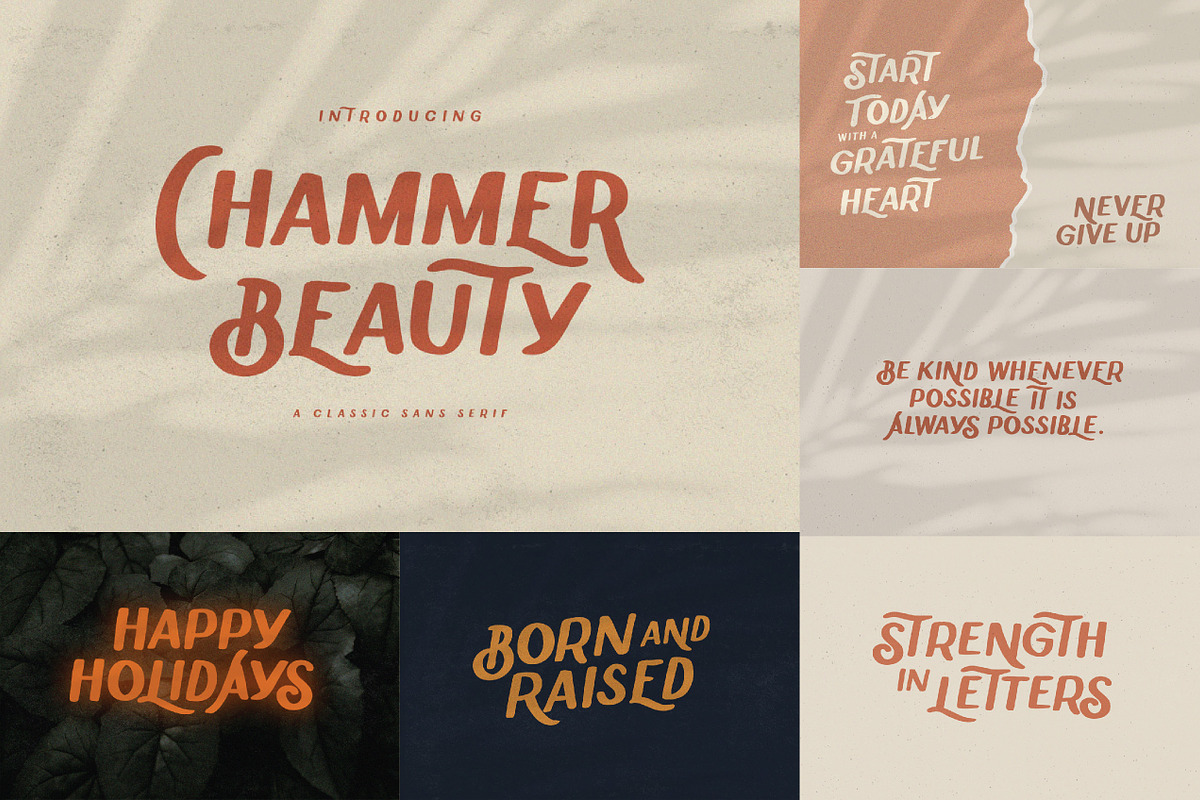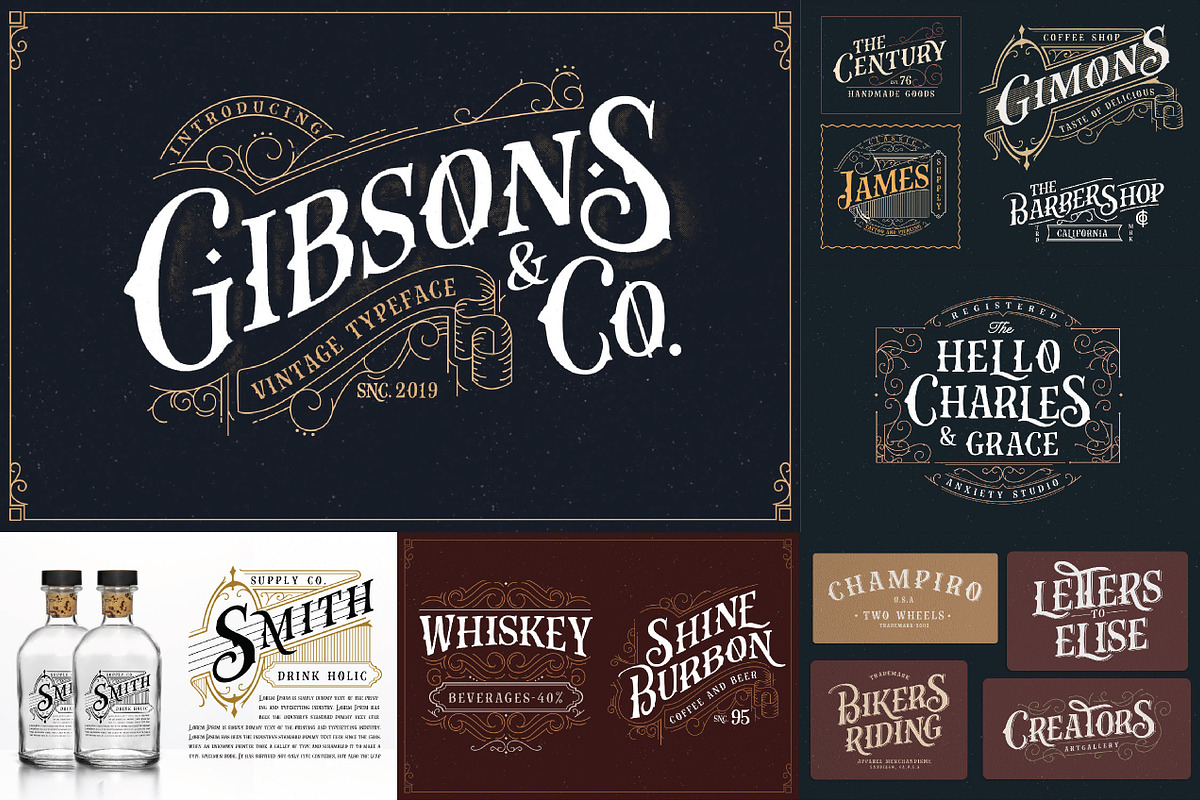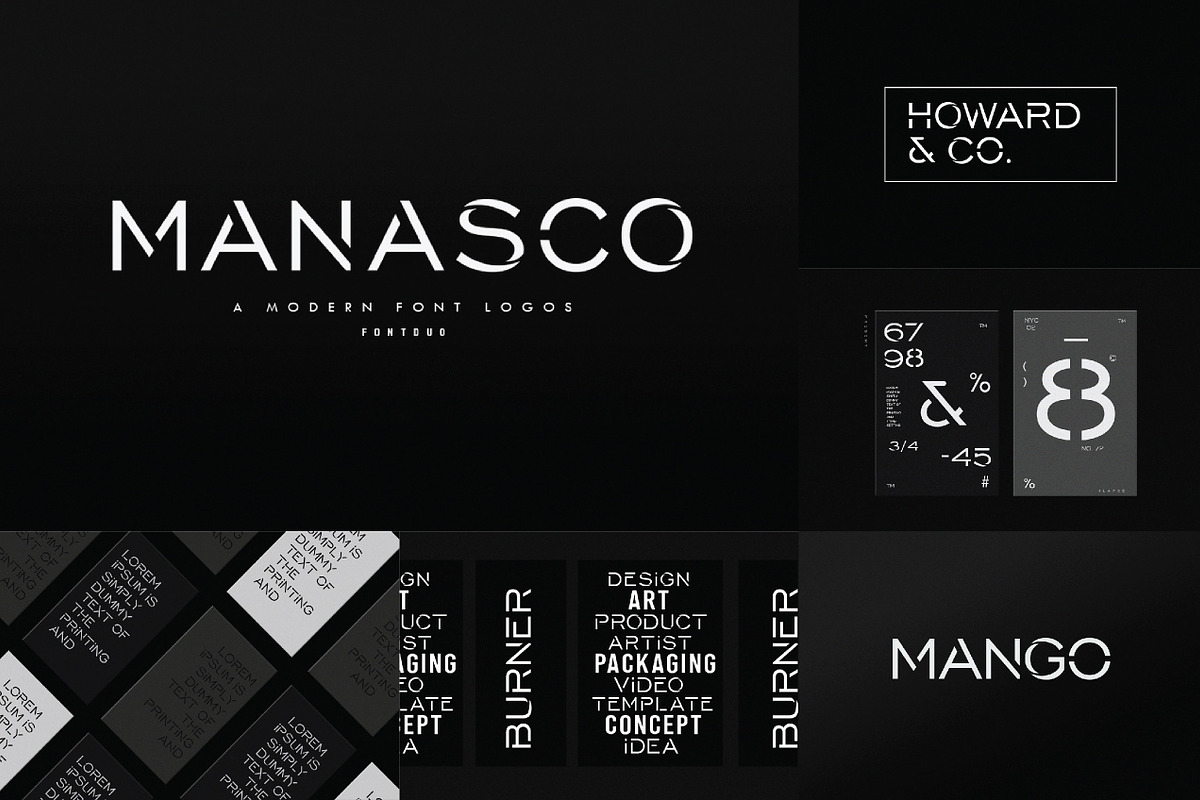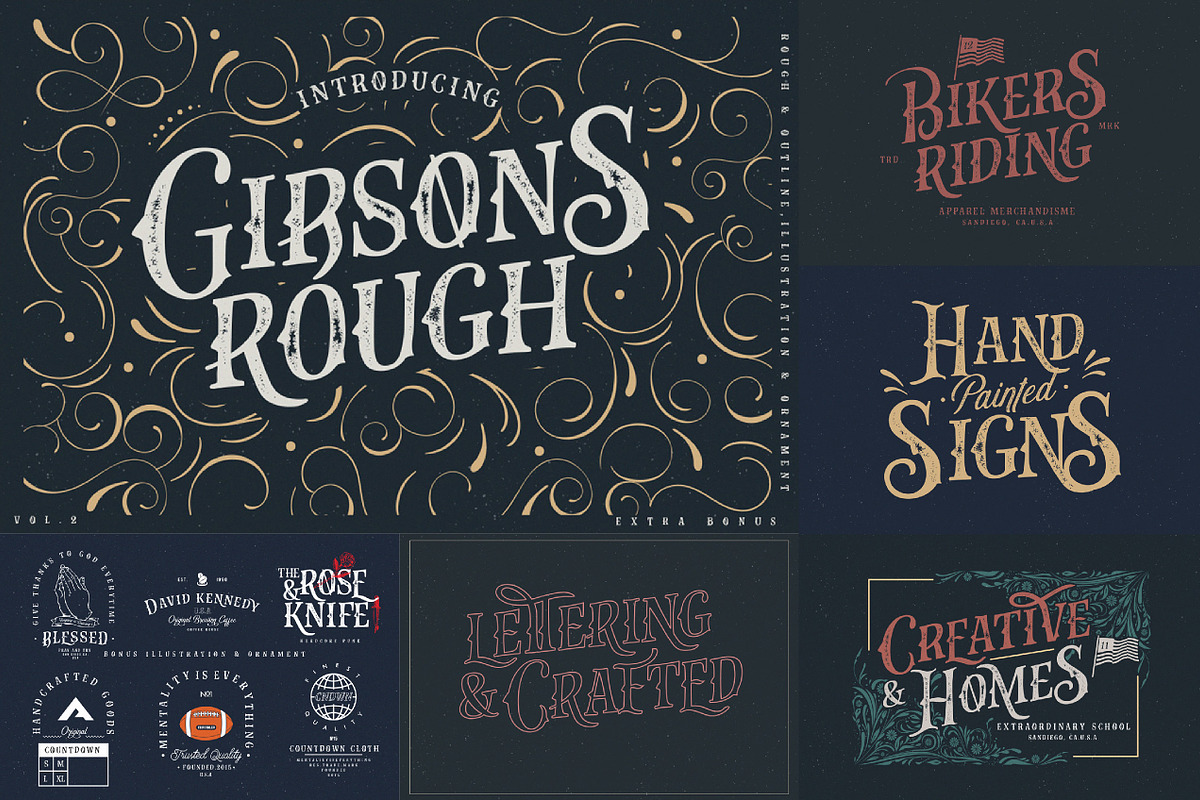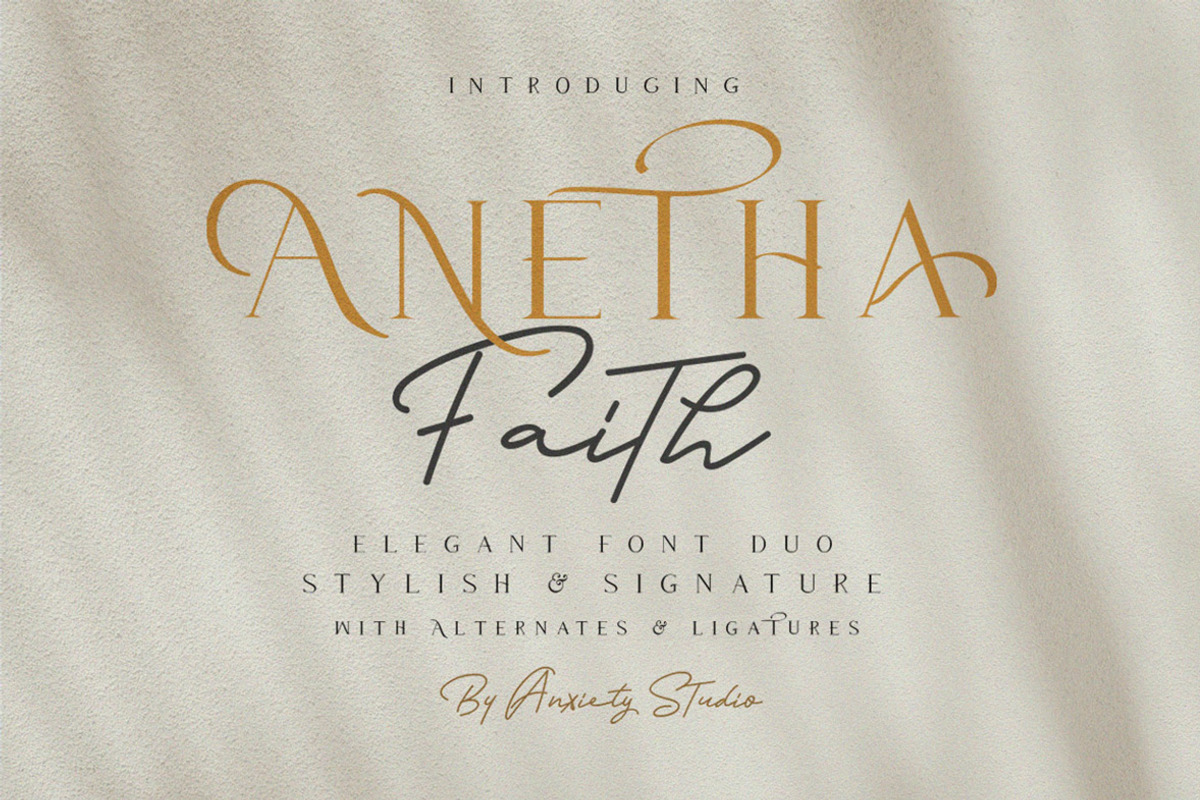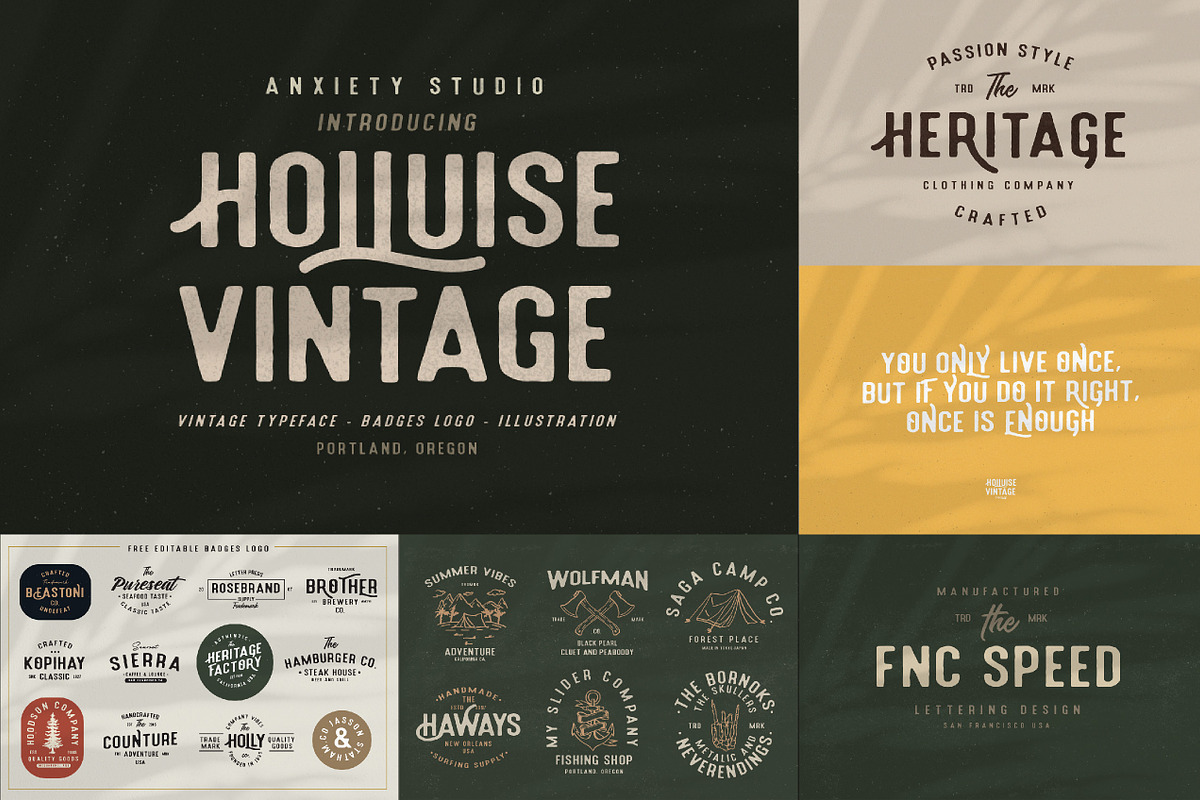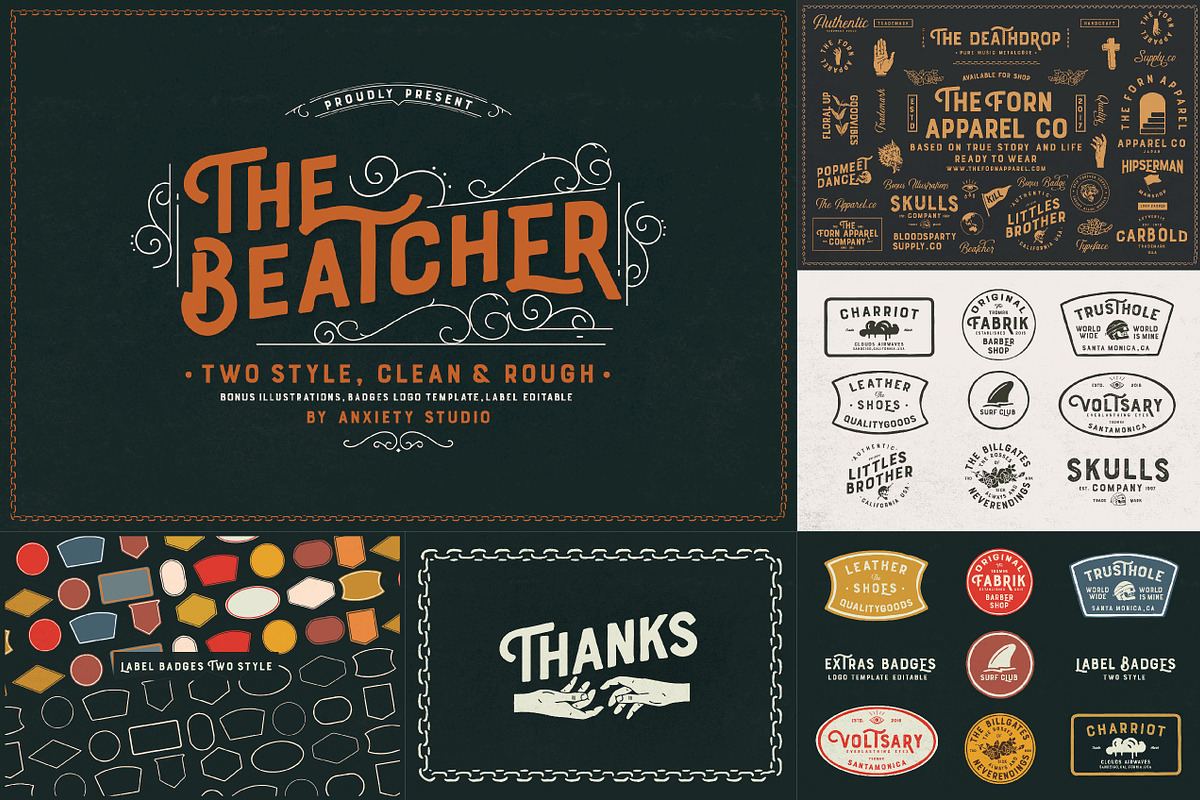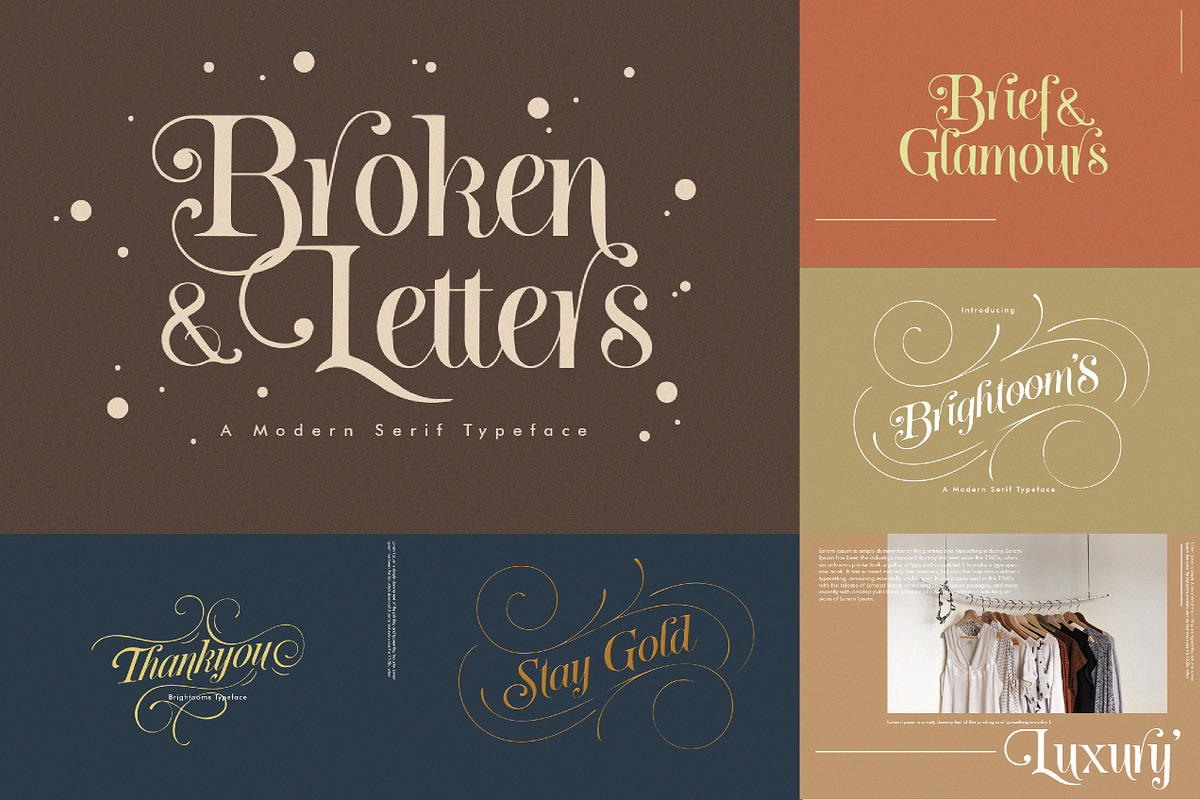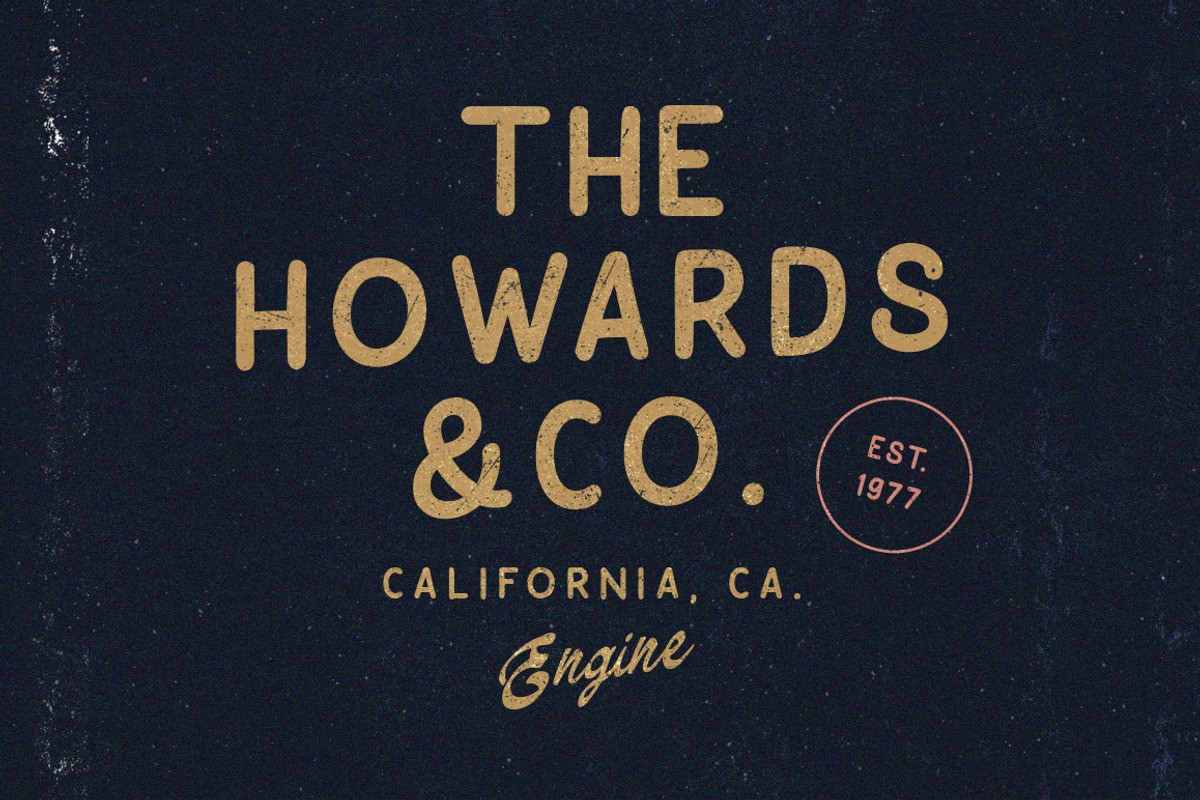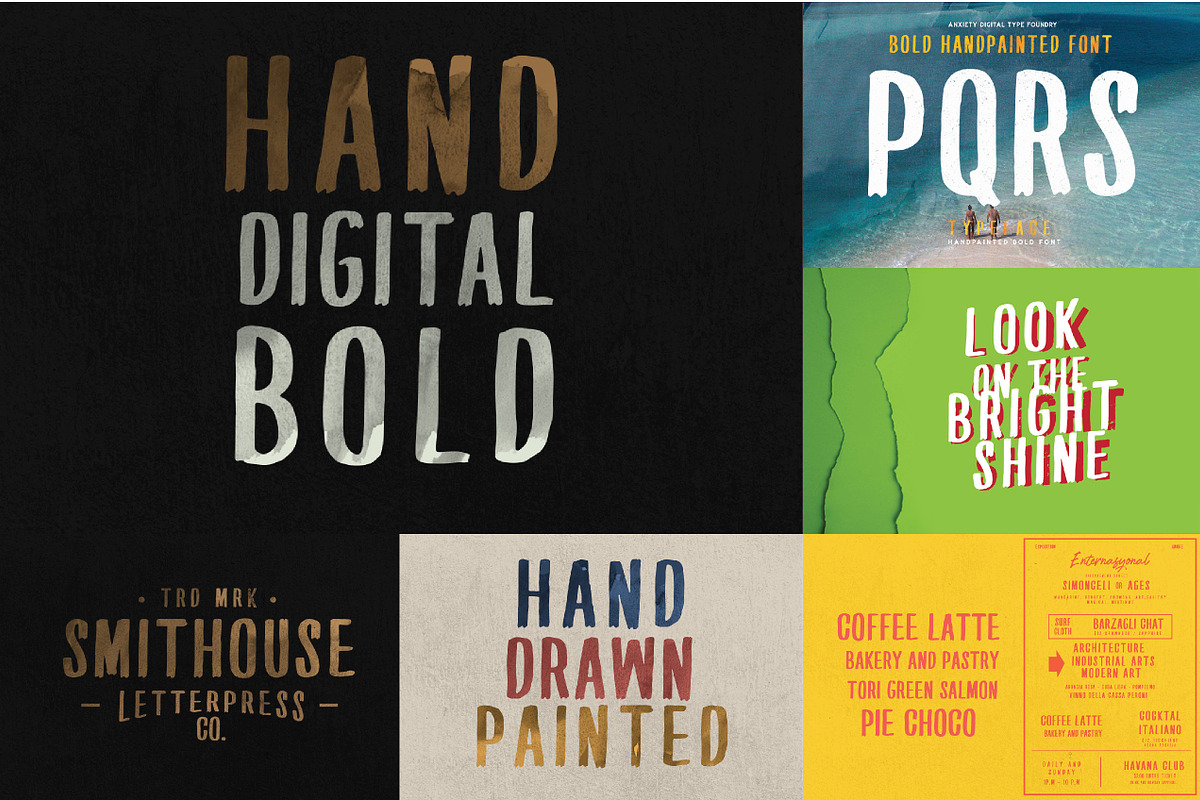
The Luxury Sans & Serif Font Bundle
THE LUXURY SANS & SERIF FONT BUNDLE
Presenting, The Luxury Sans & Serif Fonts Bundle, a mix of serif and sans fonts, which are made into a crazy package. Unique, modern, classic, vintage, stylish fonts into one package without exception. with the extra bonus logo, illustration, ornament, badges logo this collection can be purchased at CreativeMarket.com.
Font Include :
- Chammer Beauty Classic Sans Serif
- Broken Letters Modern Serif
- Manasco -A Modern Font Logos
- PQRS Bold Font
- Holluise Vintage (Extra Badges Logo)
- Leatherhand Stencil Fontduo
- Roller Coaster Serif (Bonus)
- Anetha Faith Serif
- Gibsons Co Vol.2
- Blues Vacations Extra Logo -Gibsons Co Vol.1 (Extra Ornament)
- Saint Quard Serif Extra Logo
- The Beatcher Typeface (Extras)
- Marotho Typeface